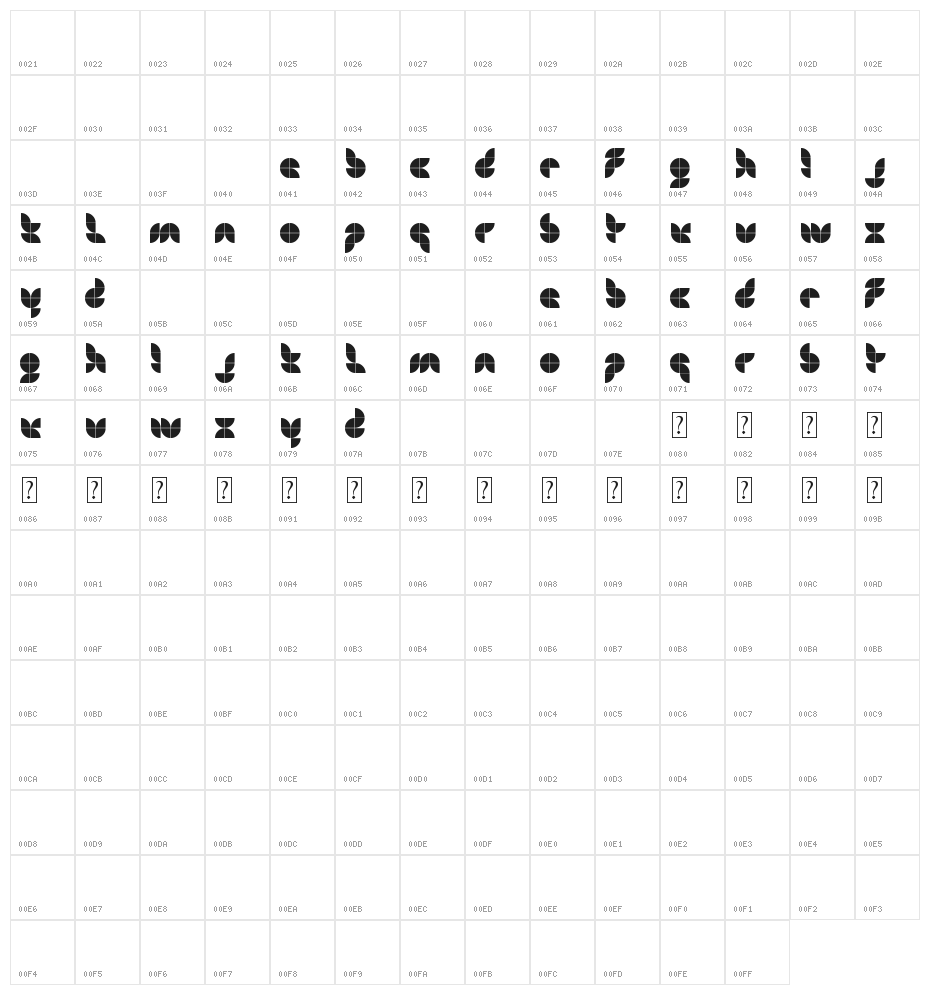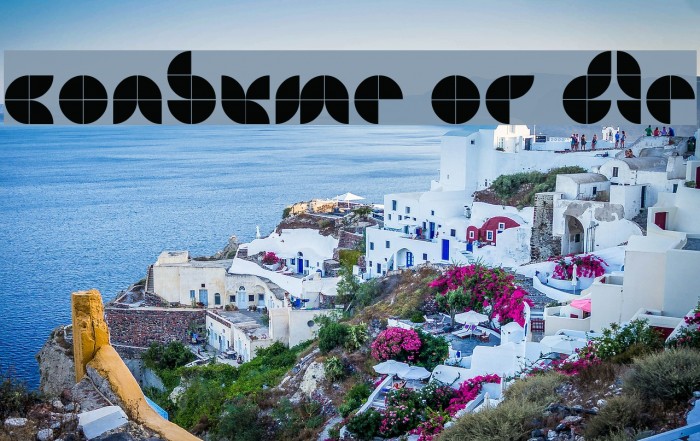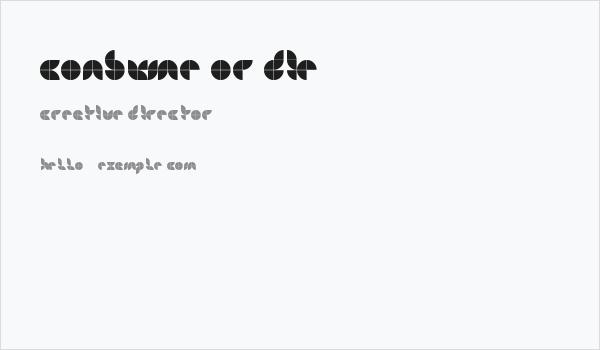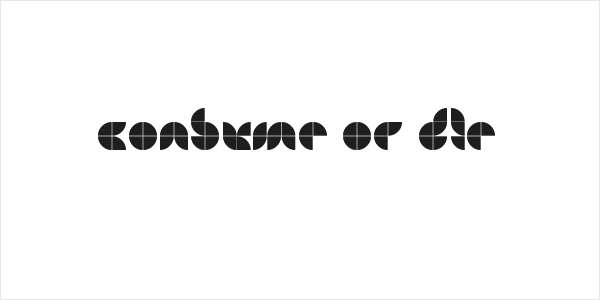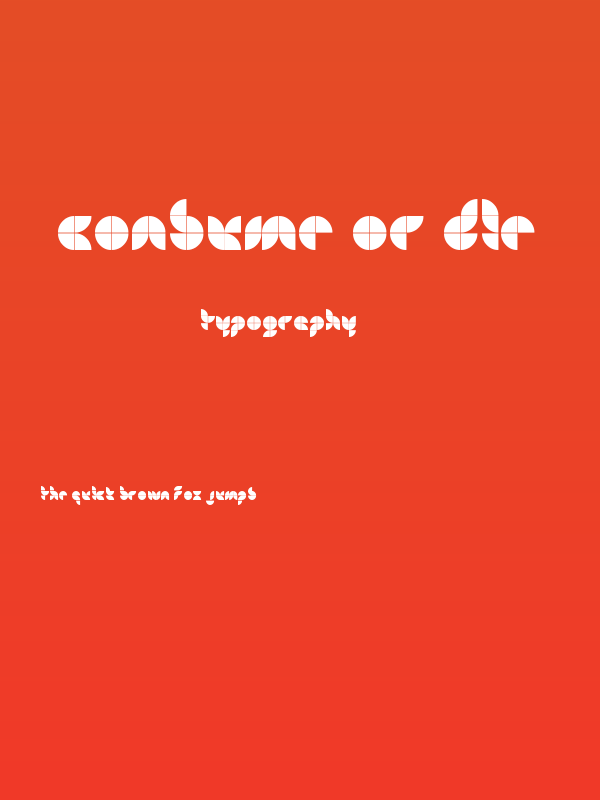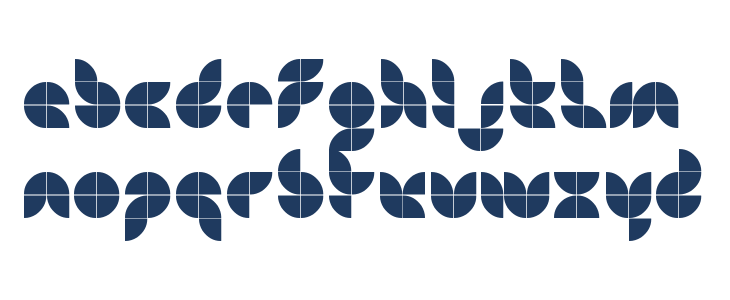
Consume or Die Font
Consume or Die Description
This font features a unique geometric design, with each character composed of circular segments and arcs that create a bold, modern appearance. The letters are constructed using a grid-like pattern, giving them a structured yet playful feel. The consistent use of circular shapes across all characters provides a cohesive look, while the varying orientations of these shapes add visual interest. This font is highly stylized, making it ideal for projects that require a distinctive and eye-catching typeface.
| Proposed Projects | Ideal for modern branding, posters, and digital media where a unique and striking typeface is needed. |